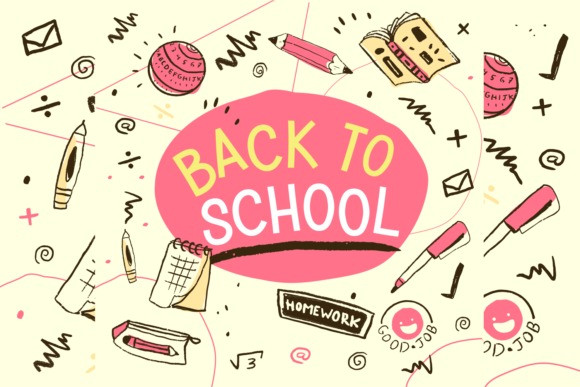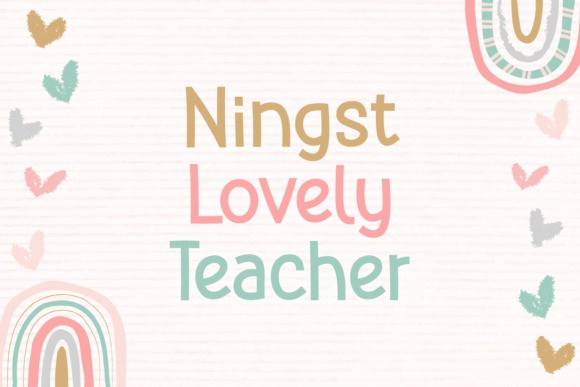
Ningst Lovely Teacher Font
Ningst Lovely Teacher Display Font is a childish, easy-to-read display font that conveys impeccable friendliness. Whether you’re using it for crafts, digital design, presentations, or making greeting cards, this font has the potential to become your favorite go-to font, no matter the occasion!